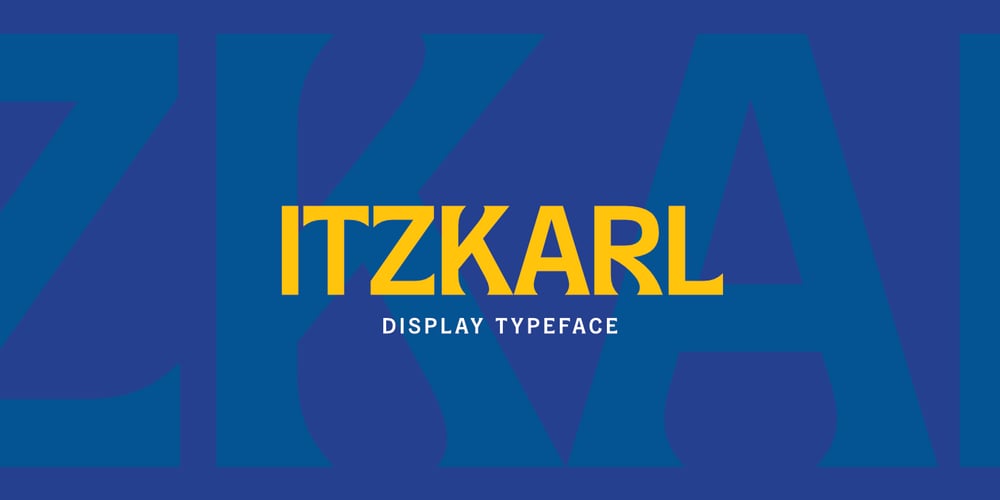
Itzkarl
Itzkarl font
Itzkarl Font Family was designed by Alfredo Marco Pradil and published by Hanken Design Co.. Itzkarl contains 5 styles and family package options. ItzKarl is a unique hybrid typeface with serif and sans serif features that is suitable for headline, logo and poster use.